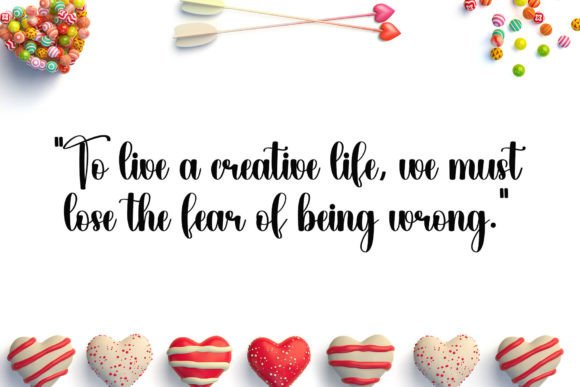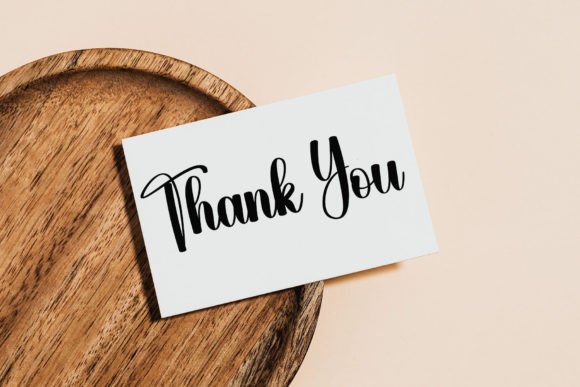
Introduction to Back to School Font
As the summer sun sets and the crisp autumn air arrives, the excitement of a new school year begins. For many of us, the back-to-school season sparks a sense of nostalgia and creativity. It’s the perfect time to break out the colorful pens, pencils, and paper to create something truly special. But what if you could capture the essence of this nostalgic feeling in your designs?
That’s where the Back to School Font comes in – a beautifully crafted handwritten font that embodies the elegance and timelessness of this iconic season. With its high-quality design and transparent background, this font is a valuable resource for any creative project. Whether you’re a seasoned designer or just starting out, the Back to School Font is sure to inspire your next masterpiece.
Key Features of Back to School Font
- Unique, playful design perfect for a creative project related to education, such as a school newsletter or flyer.
- High quality font with transparent background, ideal for use on images or graphics.
- Large character set with over 1000 glyphs, including a wide range of special characters and punctuation.
- Resolution-independent, making it suitable for use in both print and digital applications.
- Designed to be highly legible, even at small font sizes, making it perfect for use in a variety of creative projects.
Honest Review: Back to School Font
I recently came across the Back to School Font, and I must say it’s a great addition to any designer’s toolkit. The high quality of this font is immediately apparent, with crisp lines and a clean design that makes it perfect for a creative project.
One of the standout features of this font is its transparent background, which makes it easy to layer over other design elements. This is a huge plus for designers who value a seamless design process.
- High quality design that’s perfect for a creative project ✨
- Transparent background makes layering a breeze ✨
- May not be suitable for more formal or professional designs ⚠️
- Could be improved with more font styles and weights ⚠️
Overall, I’m impressed with the Back to School Font. It’s a great choice for designers looking for a fun and playful font for a creative project. With its high quality design and transparent background, it’s a valuable addition to any design resource library.
For PowerPoint and Word users, the ‘Back to School Font’ can be easily added from the font library. This font is a great resource for creating engaging presentations and documents. To get the most out of it, experiment with different font sizes, colors, and arrangements to create a visually appealing design.
Tips and Use Cases
The ‘Back to School Font’ is perfect for a variety of creative projects, including educational materials, flyers, and posters. Some common use cases include: school announcements, educational brochures, and event invitations. To get the most out of this font, consider using it in combination with other design elements, such as images and graphics. You can also use it as a free download on your website or social media channels to add a personal touch.
Q: Can I use the Back to School Font for a large-scale creative project?
Yes, the Back to School Font is a high-quality design resource that can be used for large-scale creative projects. With its transparent background and scalable design, you can use it to create stunning visuals for billboards, advertisements, or any other large-format design project.